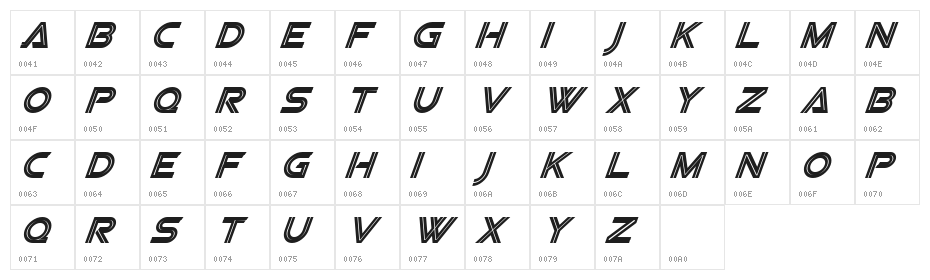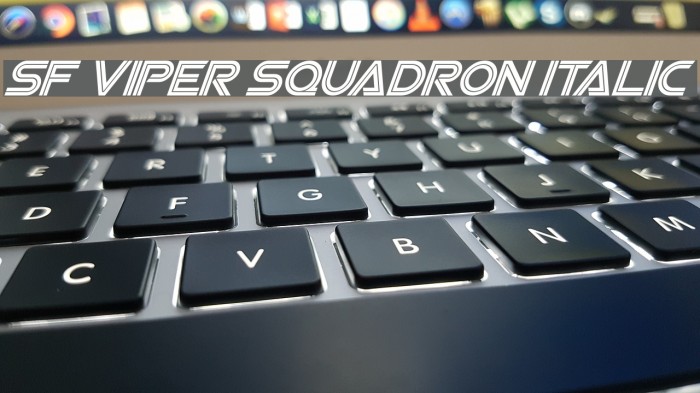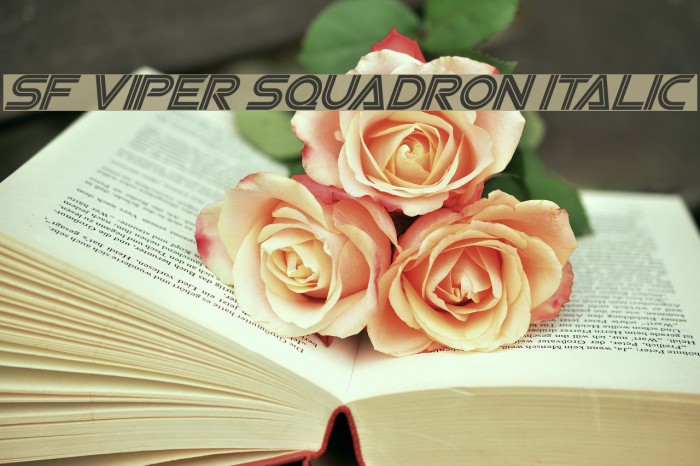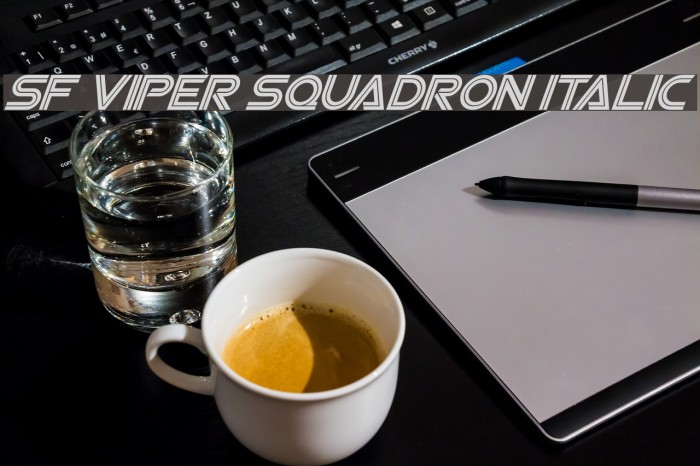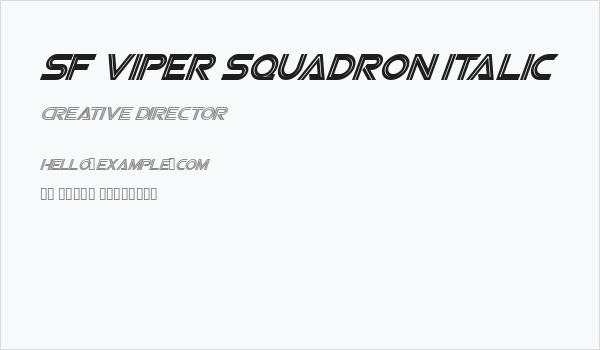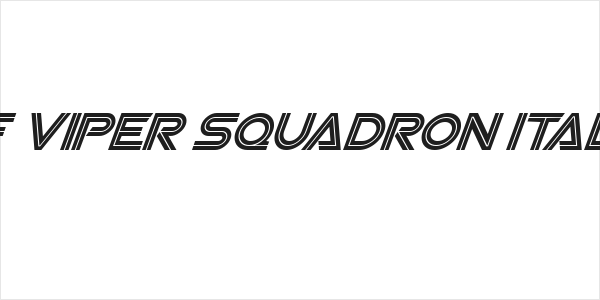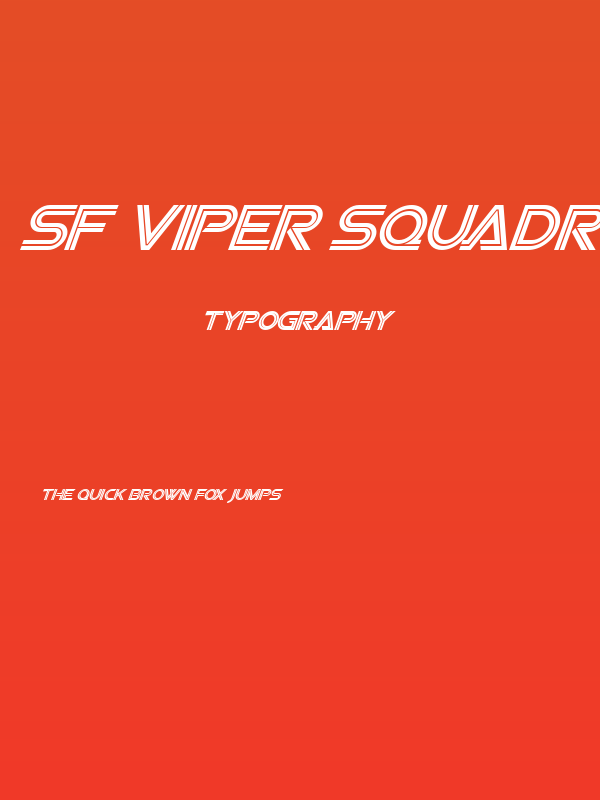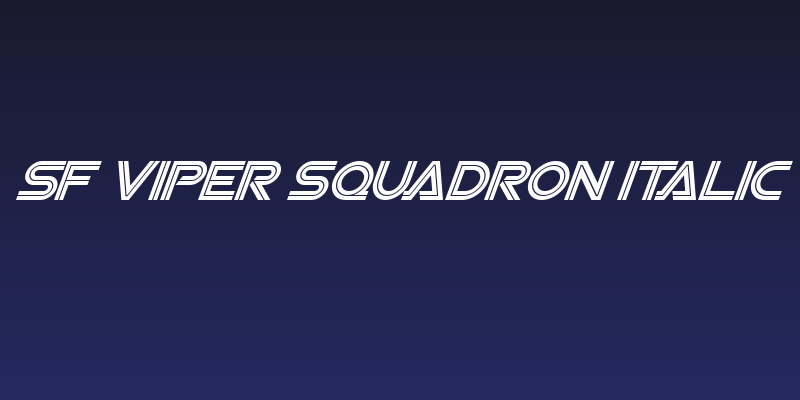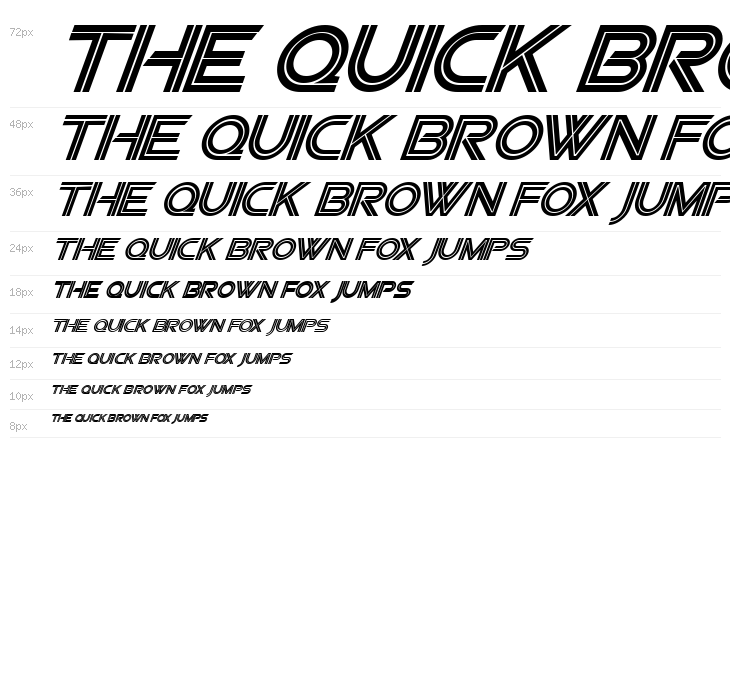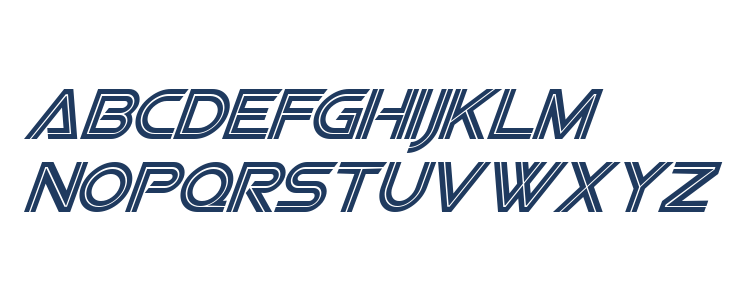
SF Viper Squadron Italic Font
SF Viper Squadron Italic Description
This font features a bold, italicized style with a futuristic and dynamic appearance. The characters are designed with a distinct double-line effect that adds depth and movement, making it ideal for projects that require a sense of speed and modernity. The uppercase letters are angular and sharp, while the lowercase letters maintain a consistent style, ensuring readability and visual impact. The numbers and special characters follow the same design principles, providing a cohesive look across all elements.
| Proposed Projects | Ideal for sci-fi themed posters, video game titles, and branding for tech companies. |